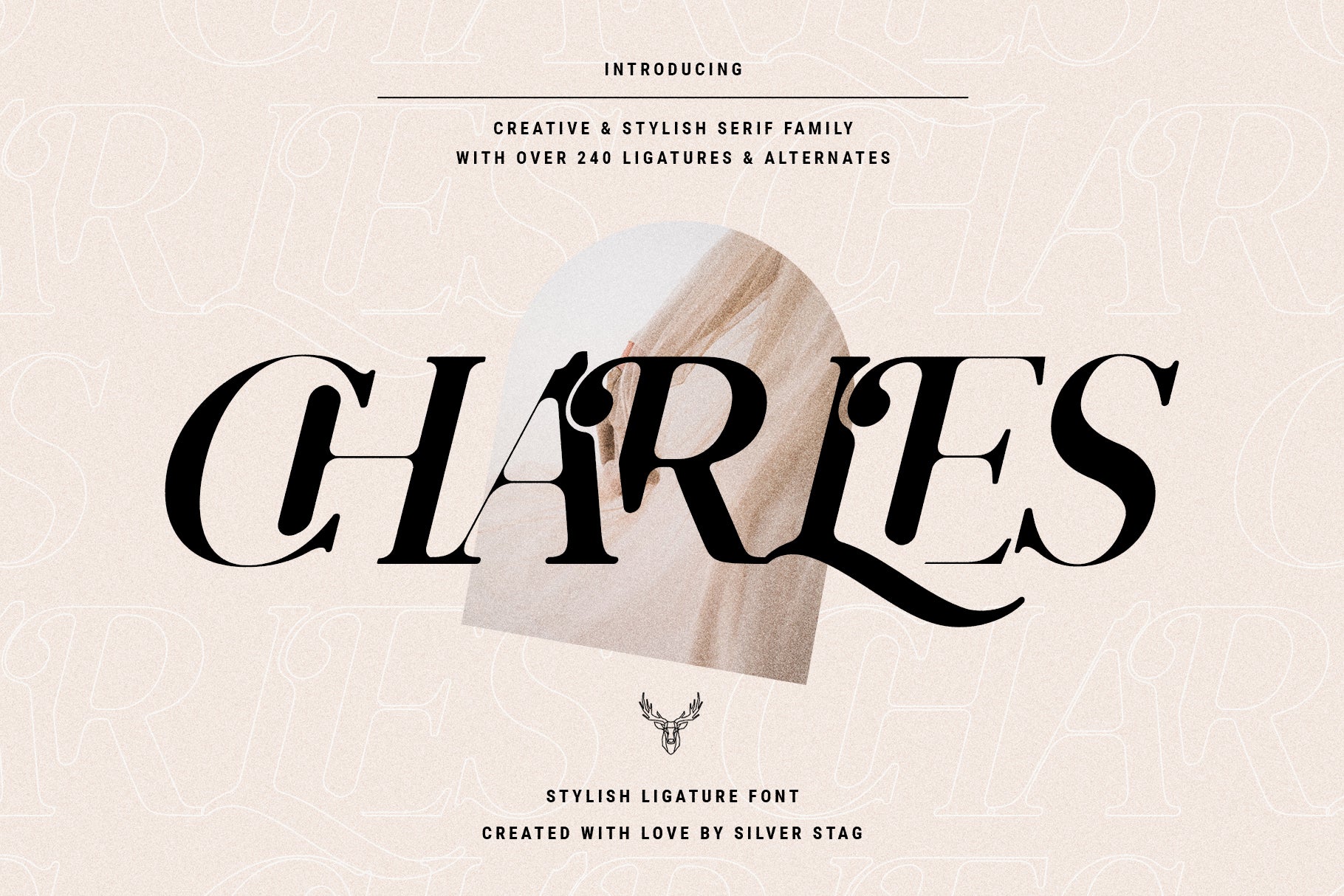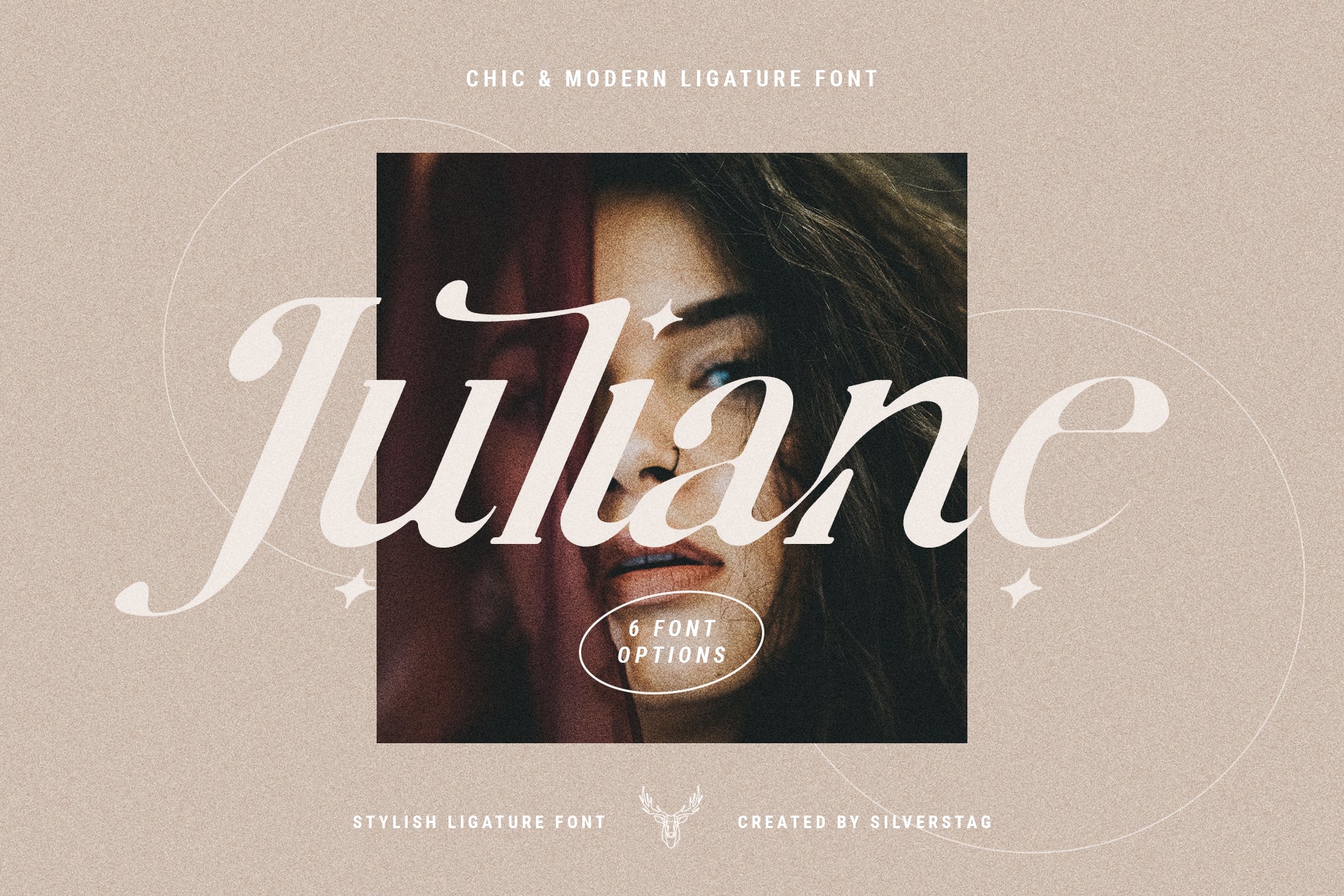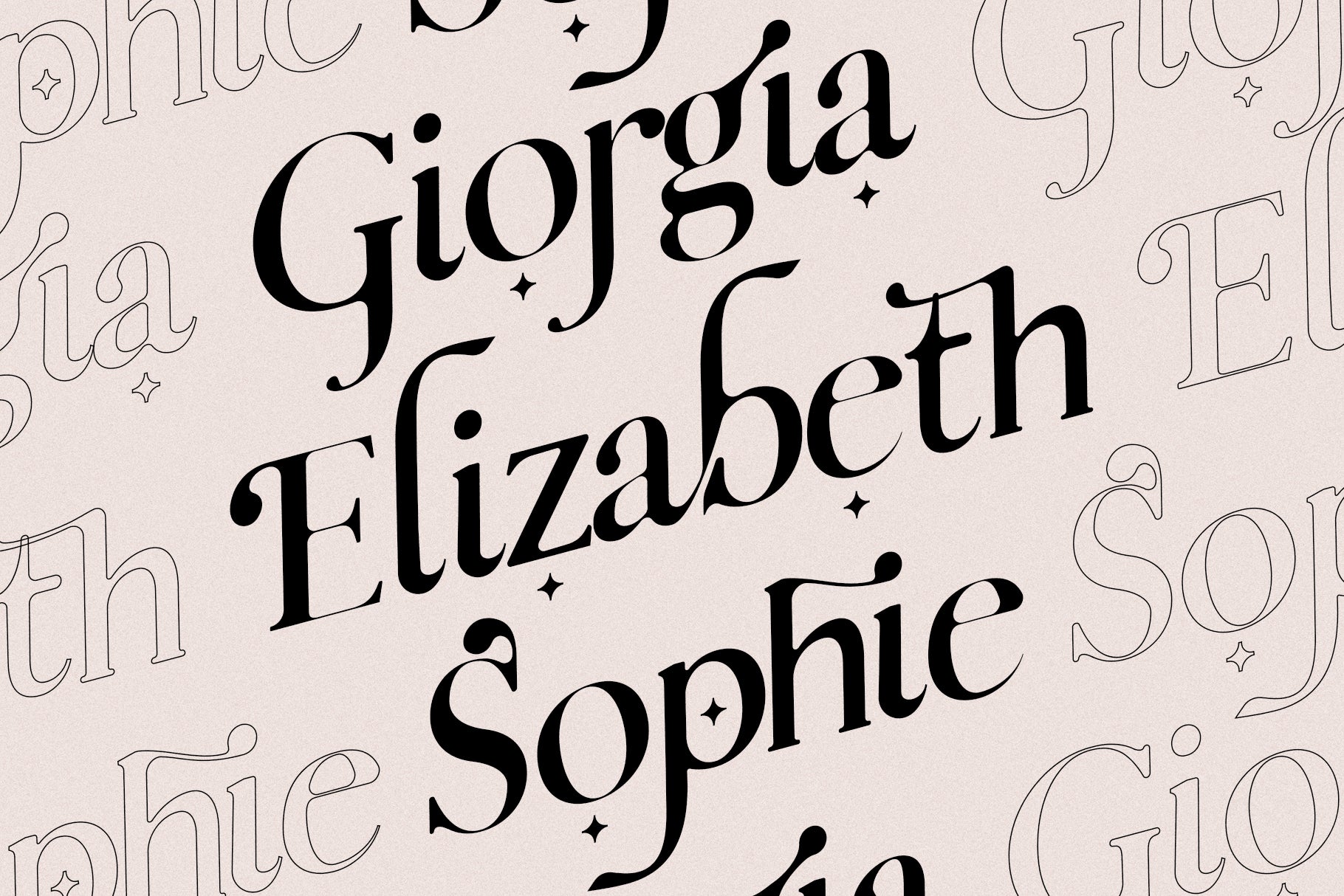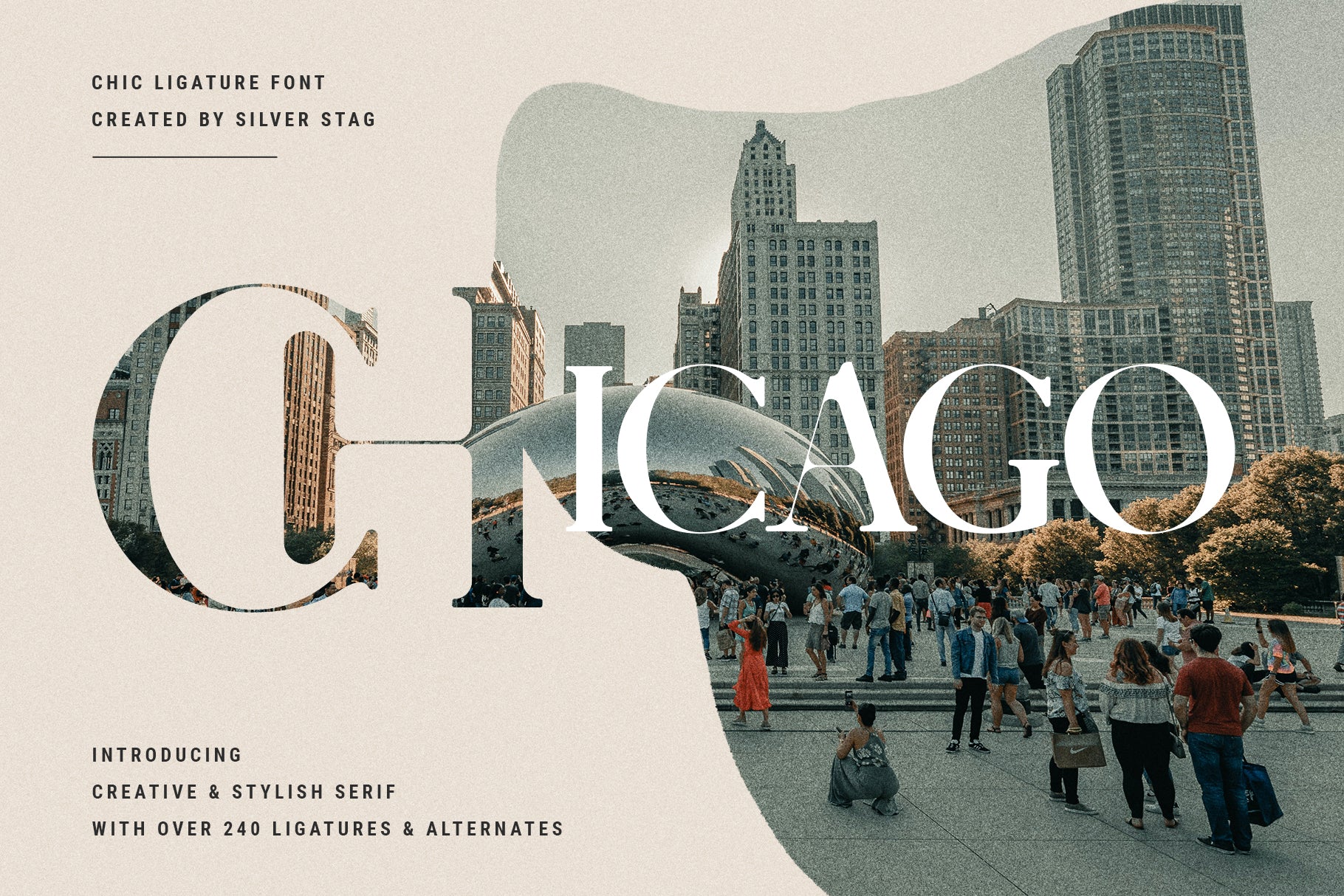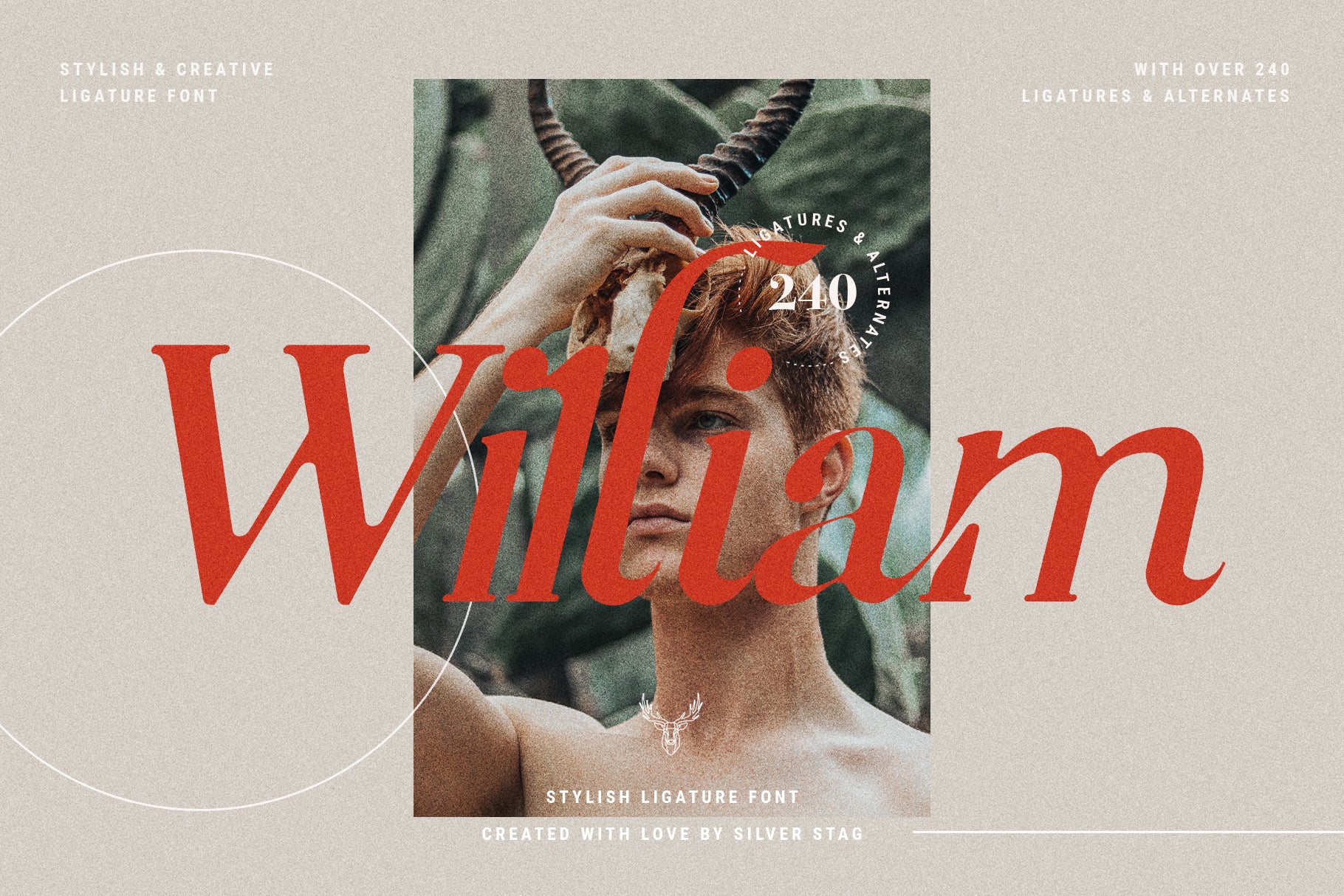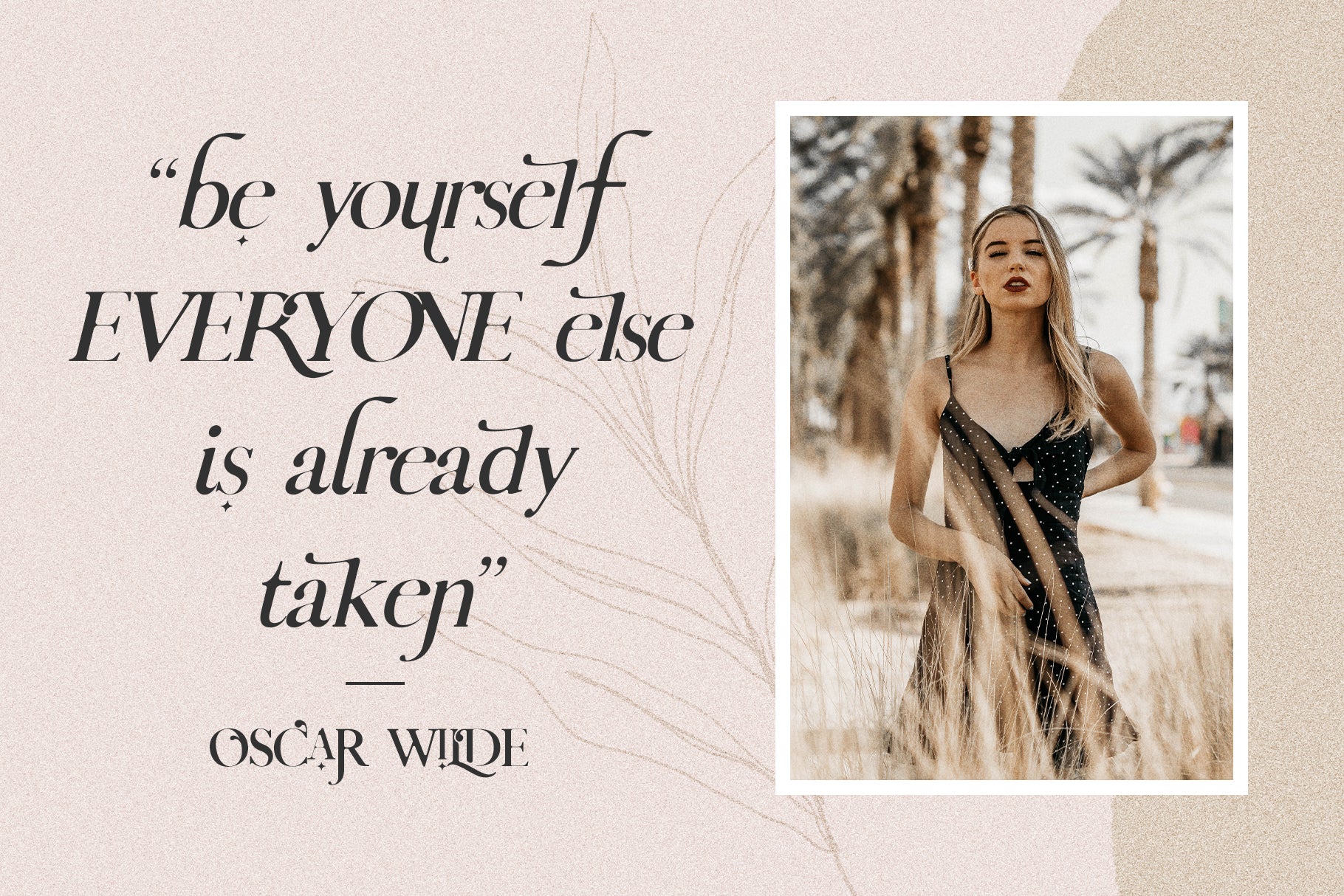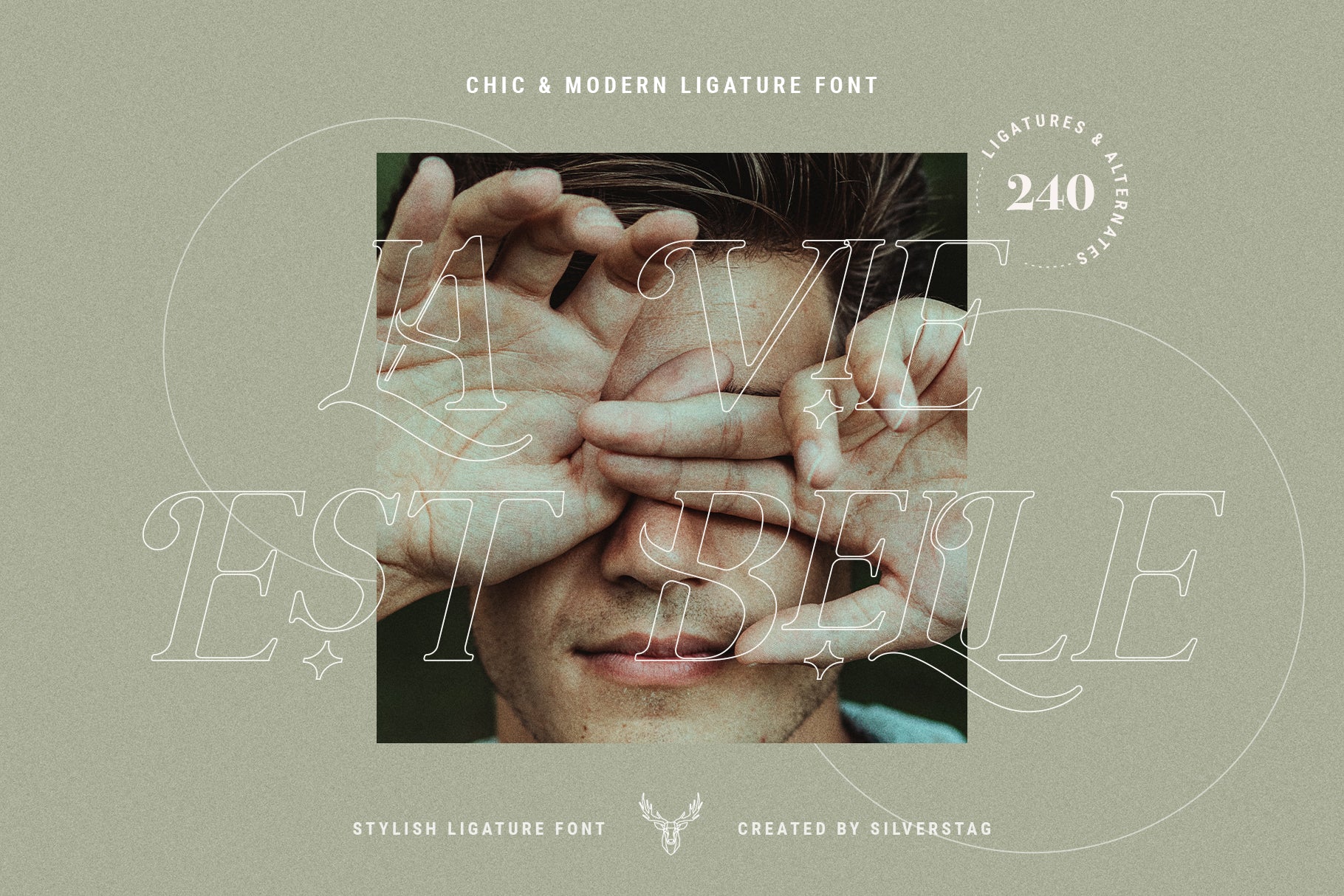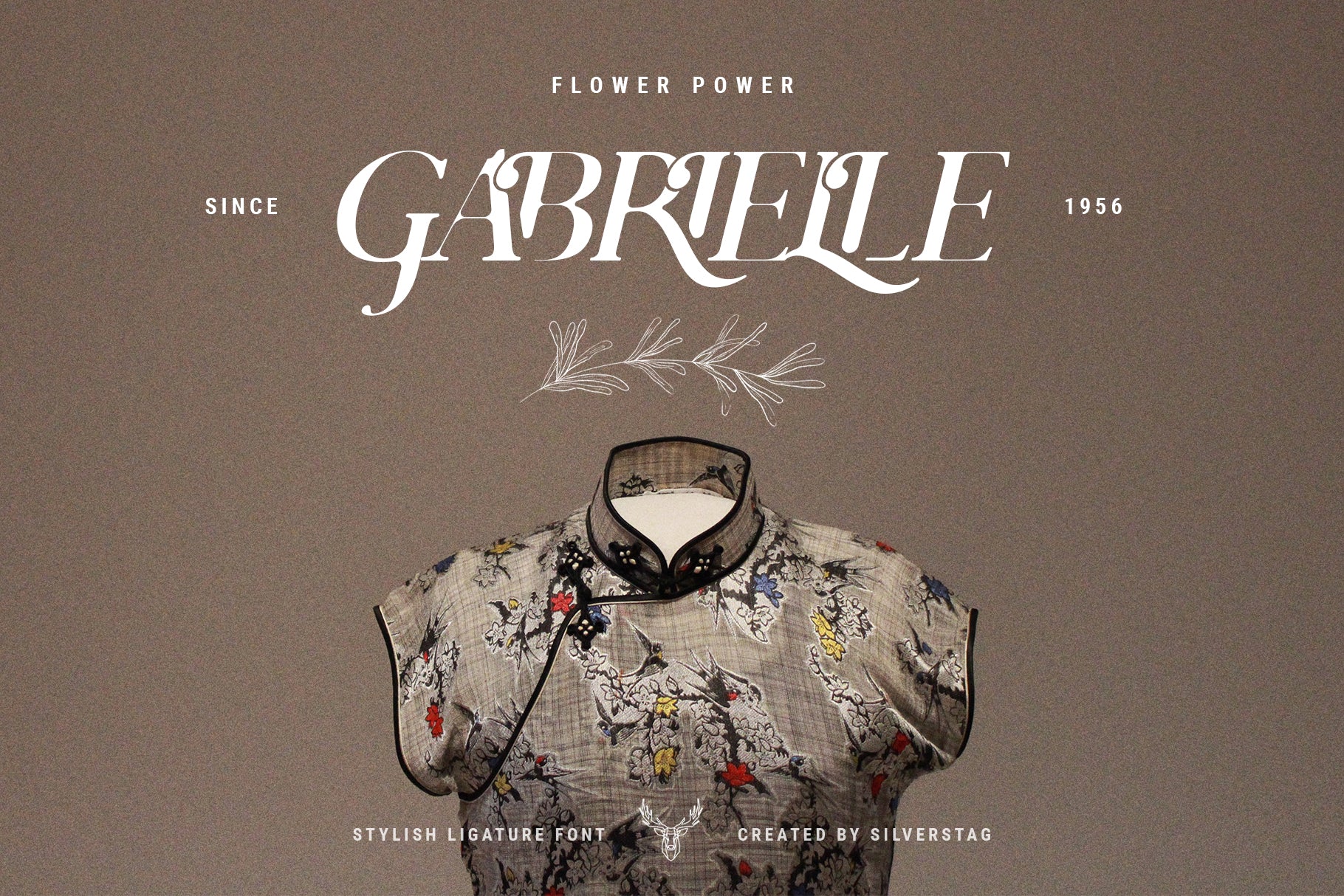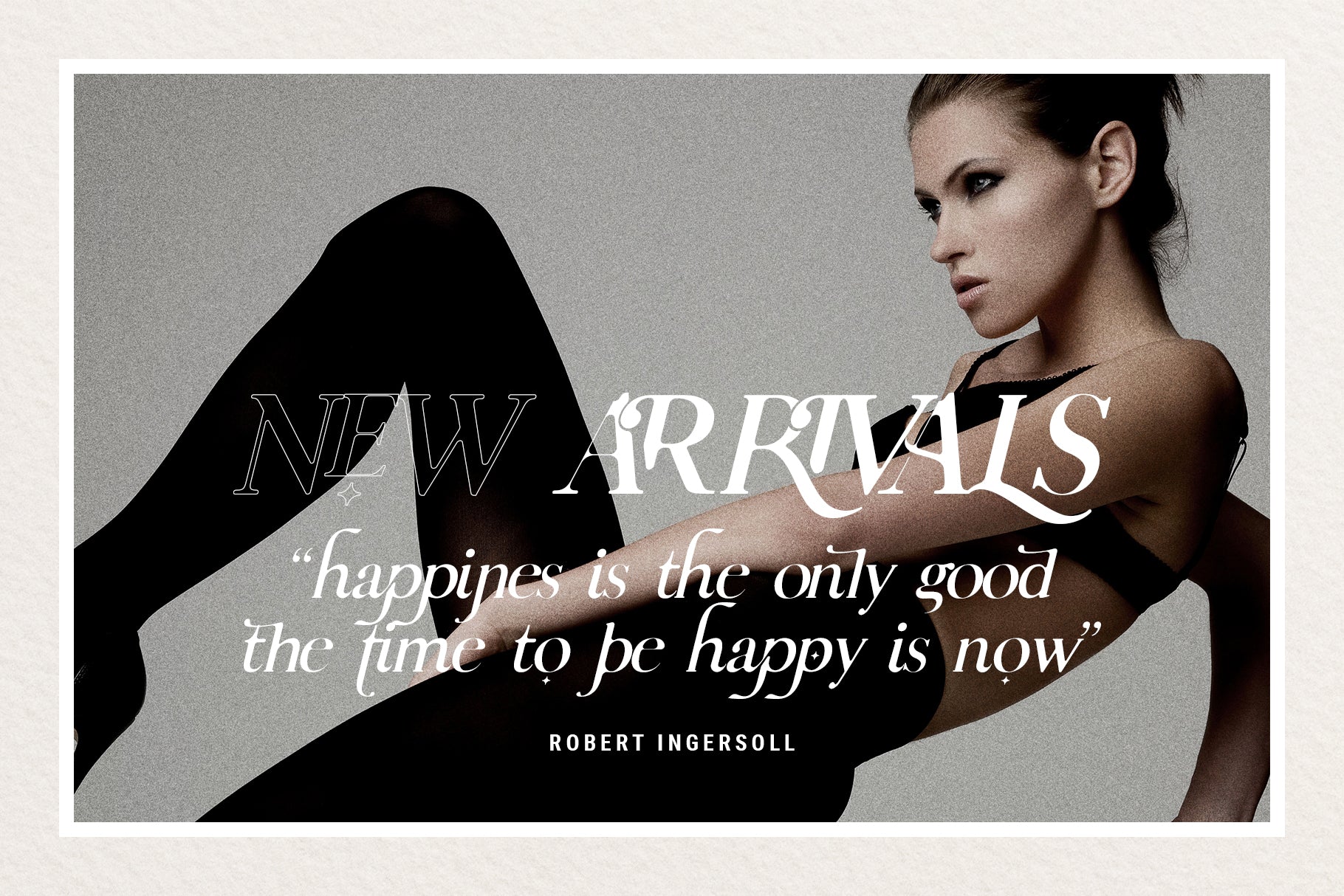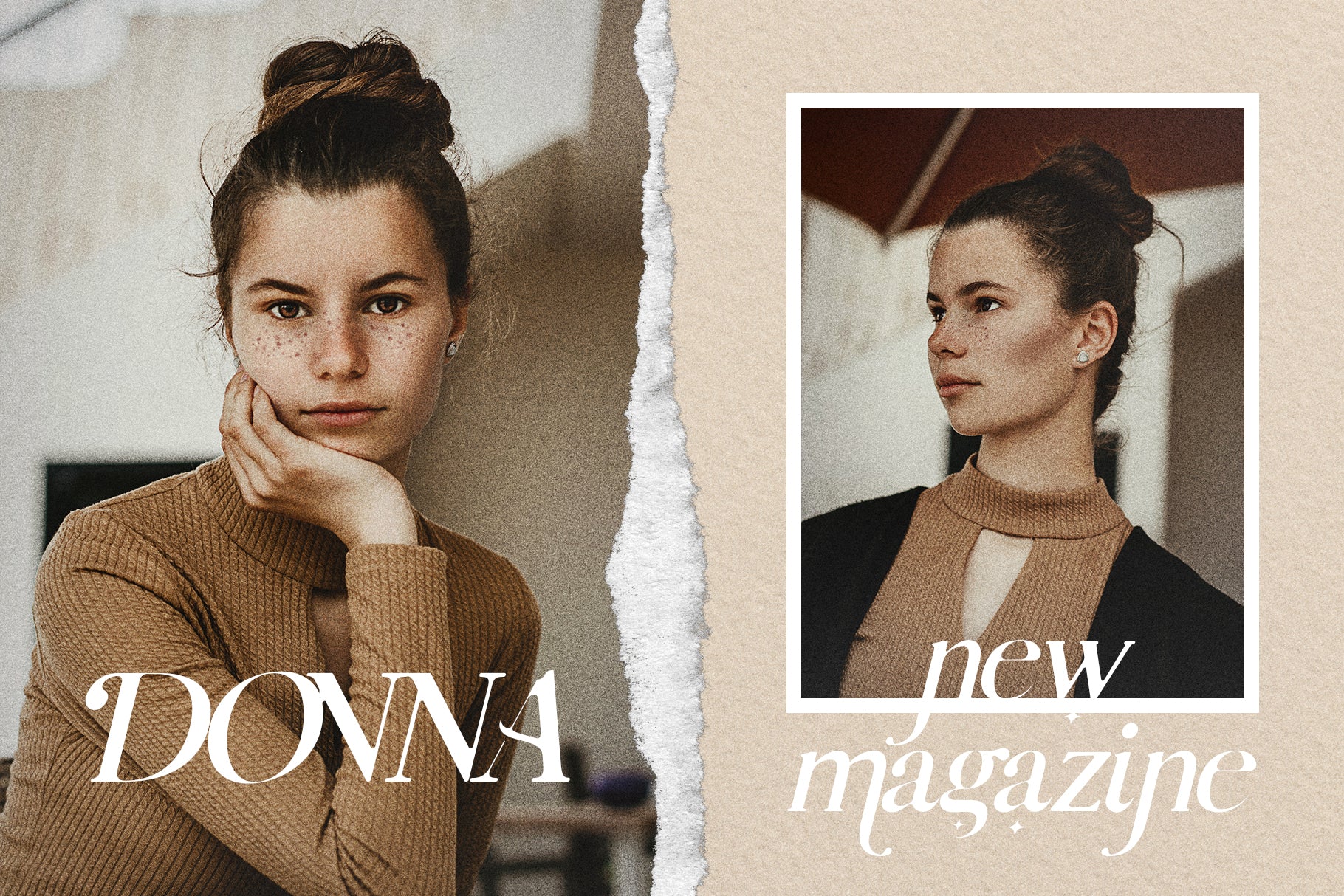
Meet Charles, a sophisticated ligature serif font family crafted for elegance and versatility. With 6 beautiful styles—Regular, Outline, Italic, Italic Outline, Extra Italic, and Extra Italic Outline—this font offers endless creative potential for logos, wedding designs, editorial layouts, social media graphics, and beyond.
Every detail of Charles has been thoughtfully handcrafted, resulting in a serif typeface that’s both chic and highly functional. With over 240 ligatures and alternate letters, soft rounded edges, and full multilingual support, this font family allows your typography to feel custom and unique in every project.
From romantic scripts to bold editorial statements, Charles adapts beautifully to any creative vision.